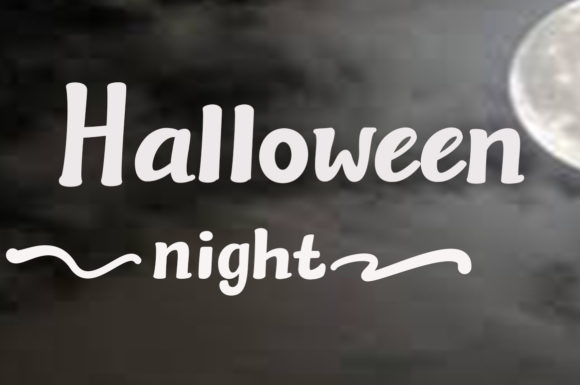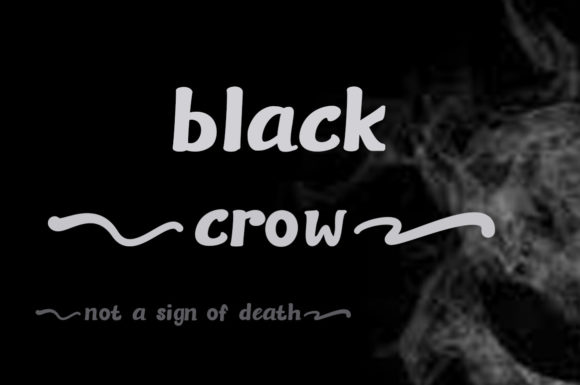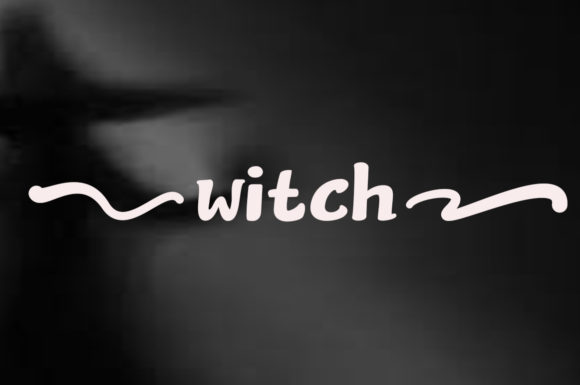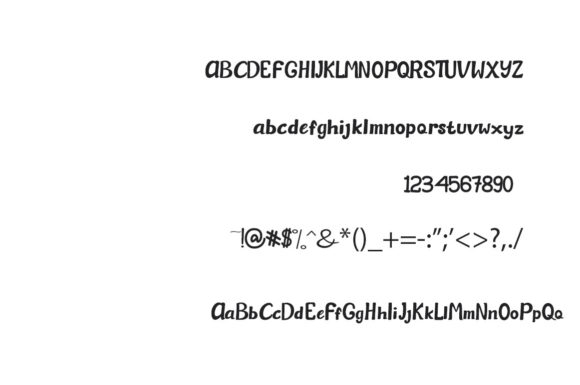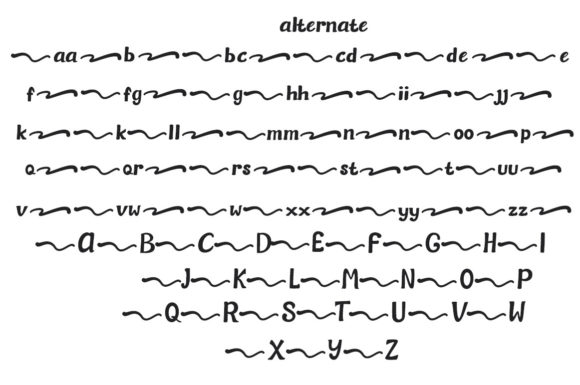
Unleash Your Creativity with Ghost Font: A Bold and Edgy Display Font
Are you tired of using the same old fonts in your designs? Do you want to add a touch of edginess and uniqueness to your creations? Look no further than Ghost Font, a cool, bold, and paint-brushed display font that’s sure to take your designs to the next level. In this article, we’ll dive into the features and benefits of Ghost Font, and explore how you can use it to elevate your design game.
What is Ghost Font?
Ghost Font is a stunning display font that’s perfect for designers and crafters looking to add a bold and edgy touch to their creations. With its unique paint-brushed texture and bold lines, Ghost Font is sure to make a statement in any design. Whether you’re working on a logo, poster, or social media graphic, Ghost Font is the perfect choice for adding a touch of personality and flair.
PUA Encoding: What Does it Mean?
One of the standout features of Ghost Font is its PUA (Private Use Area) encoding. But what does that mean, exactly? In simple terms, PUA encoding allows you to access all of the glyphs and swashes in the font with ease. This means that you can easily add special characters, ligatures, and other unique elements to your designs, giving you even more creative freedom and flexibility.
Features and Benefits of Ghost Font
So, what makes Ghost Font so special? Here are just a few of its key features and benefits:
- Unique and Edgy Design: Ghost Font’s paint-brushed texture and bold lines make it a standout in any design.
- PUA Encoding: Easily access all glyphs and swashes with PUA encoding.
- High-Quality Design: Professionally designed with attention to detail, Ghost Font is perfect for commercial and personal use.
- Multilingual Support: Ghost Font supports multiple languages, making it a great choice for global designs.
- Easily Customizable: With PUA encoding, you can easily customize your font to fit your design needs.
How to Use Ghost Font in Your Designs
So, how can you start using Ghost Font in your designs? Here are a few tips and ideas to get you started:
- Logos and Branding: Use Ghost Font to create bold and eye-catching logos and branding materials.
- Posters and Flyers: Add a touch of edginess to your posters and flyers with Ghost Font.
- Social Media Graphics: Use Ghost Font to create bold and attention-grabbing social media graphics.
- Packaging and Labels: Add a touch of personality to your packaging and labels with Ghost Font.
Tips and Tricks for Getting the Most Out of Ghost Font
Here are a few tips and tricks for getting the most out of Ghost Font:
- Experiment with Different Colors: Try out different colors and textures to really make your design pop.
- Mix and Match with Other Fonts: Combine Ghost Font with other fonts to create a unique and interesting design.
- Play with Swashes and Glyphs: Use PUA encoding to access special characters and swashes, and add an extra touch of personality to your design.
In conclusion, Ghost Font is a bold, edgy, and unique display font that’s perfect for designers and crafters looking to add a touch of personality to their creations. With its PUA encoding and high-quality design, Ghost Font is sure to take your designs to the next level. So why wait? Download Ghost Font today and start unleashing your creativity!